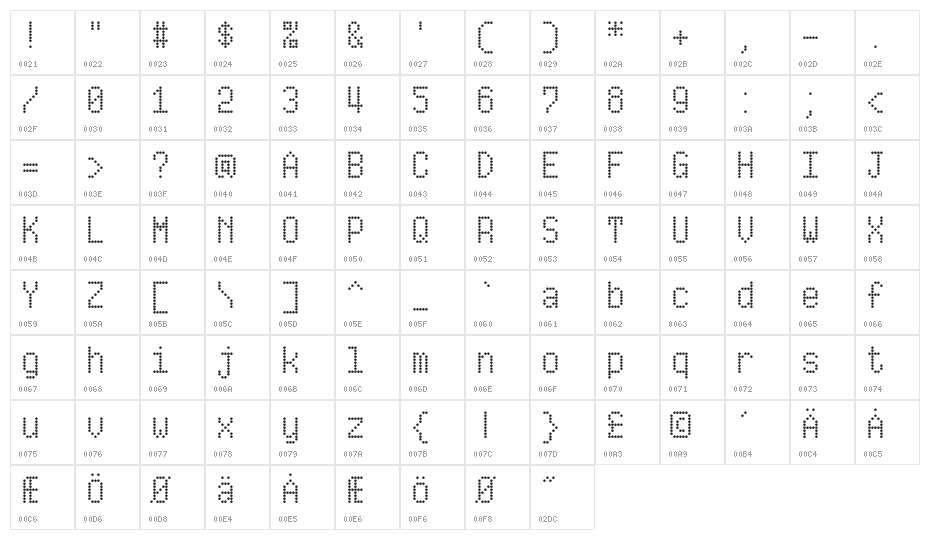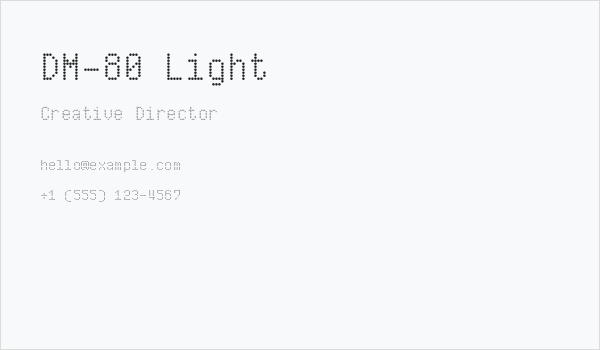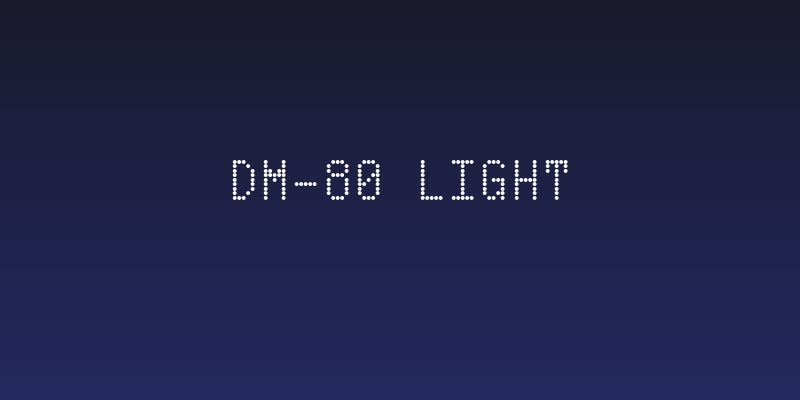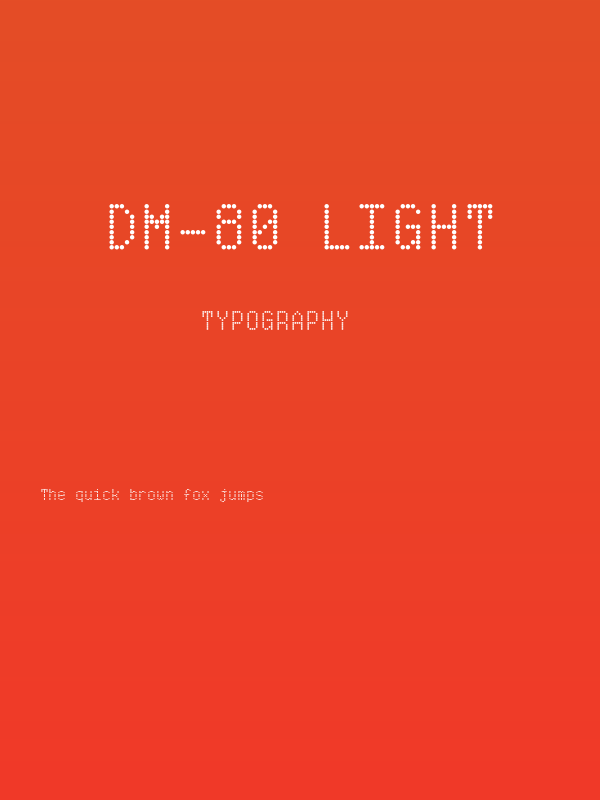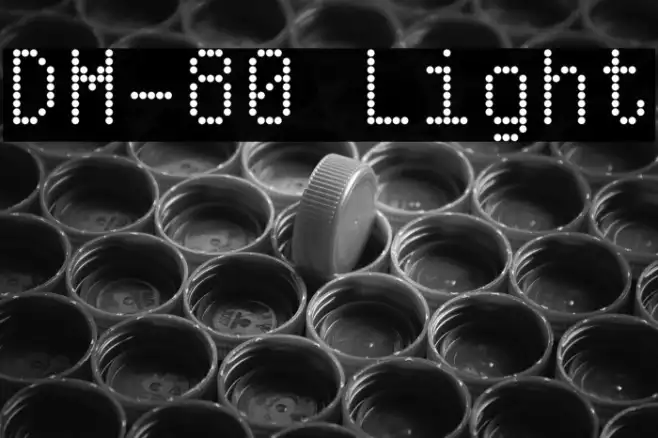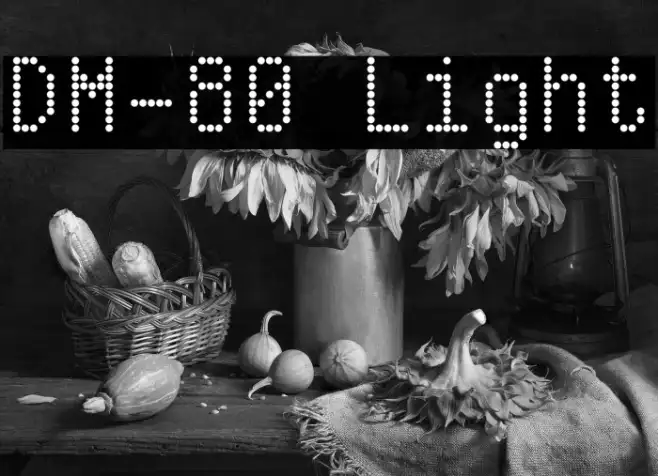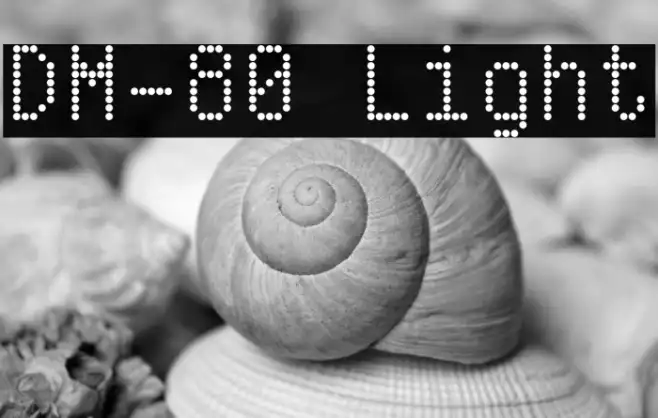
DM-80 Light Font
DM-80 Light Description
This font features a unique dotted design, where each character is composed of a series of evenly spaced dots. The geometric arrangement gives it a digital, retro feel reminiscent of early LED displays or dot matrix printers. The uppercase and lowercase letters maintain a consistent height and width, creating a uniform appearance. Numbers and special characters follow the same dotted pattern, ensuring visual coherence across all glyphs. The font's playful yet structured style makes it stand out, offering a blend of modern and nostalgic elements.
| Overall Style | Modern, Retro |
| Use Case | Headlines, Logos, Digital displays |
| Proposed Projects | Ideal for digital displays, retro-themed designs, tech-related branding, or any project seeking a unique, eye-catching typeface. |